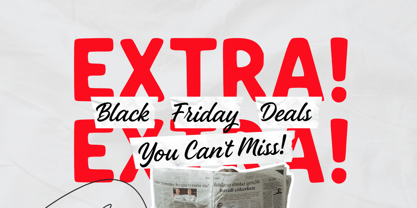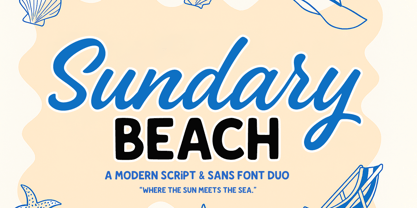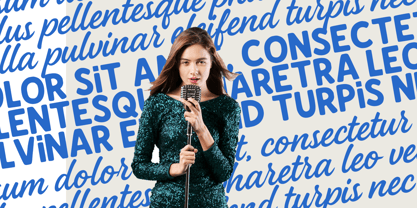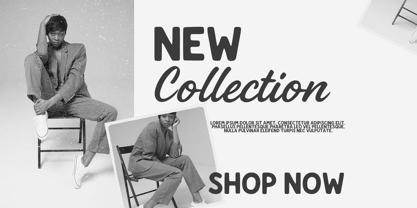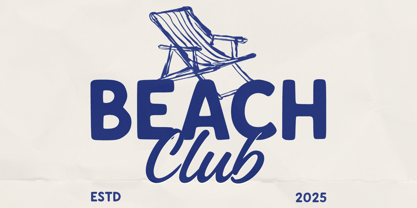
Sundary Beach Script duo
The Sundary Beach Script duo Font Family was designed by Muhammad Zaini and published by Cocodesign. Sundary Beach Script duo contains 3 styles and family package options. More about this family
Sundary Beach – A Modern Script & Sans Font Duo Sundary Beach is a modern and stylish font duo that combines the elegance of a handwritten script with the clean simplicity of a contemporary sans-serif. Inspired by the breezy charm of coastal living, this duo captures a sense of calm, confidence, and effortless sophistication. The script font features smooth, flowing strokes that bring a natural handwritten touch — perfect for adding warmth and personality to any design. The sans font complements it with clean, balanced lines that maintain a modern and professional look. Together, they create a versatile combination suitable for a wide range of creative projects. This pairing offers the perfect blend of organic beauty and structured style, ideal for projects that need both a personal touch and a polished finish.